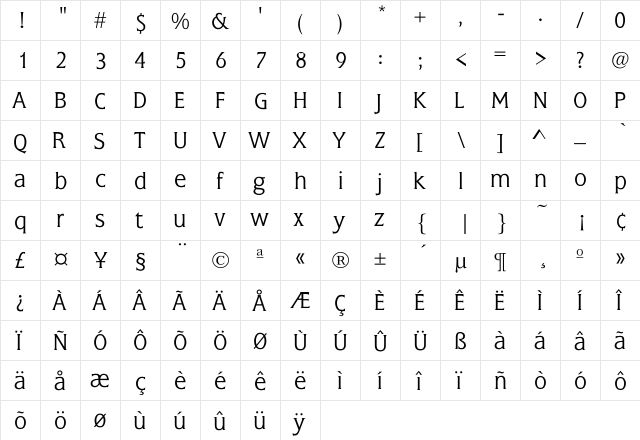
Esoterica Thin Light Regular Font Preview
Esoterica Thin Light Regular
Esoterica Thin Light Regular Font Details
Design Context for Esoterica Thin Light Typeface
Esoterica Thin Light takes a measured approach to typography — its balanced proportions and neutral character make it a reliable workhorse for both digital and print work. The delicate stroke weight brings airiness and refinement to layouts.